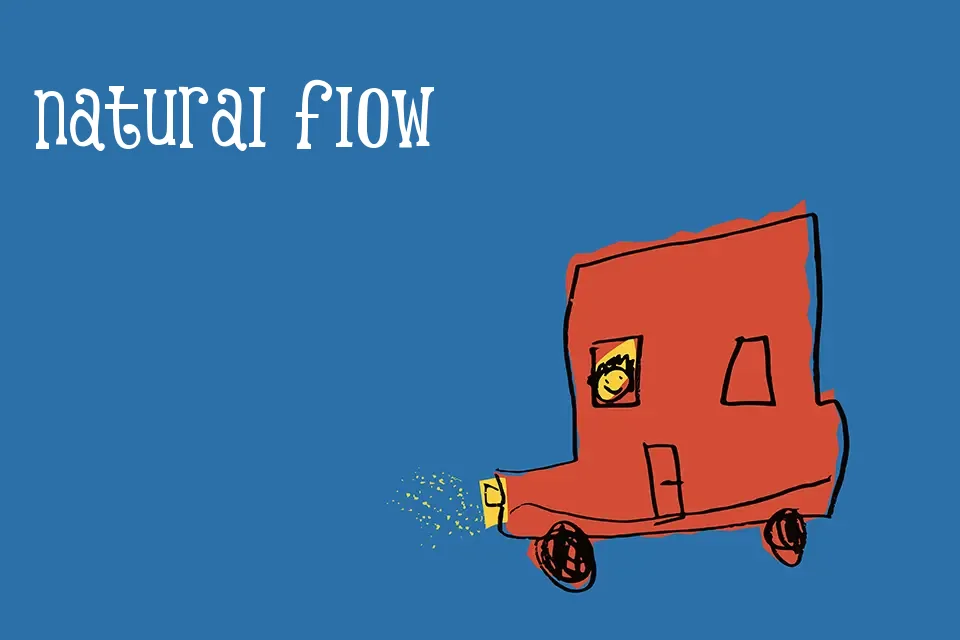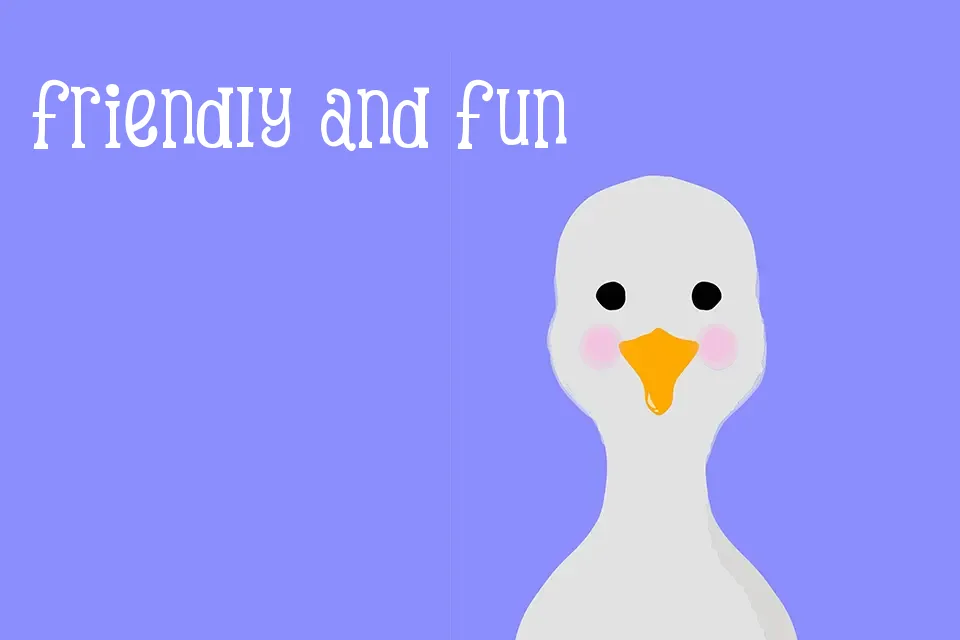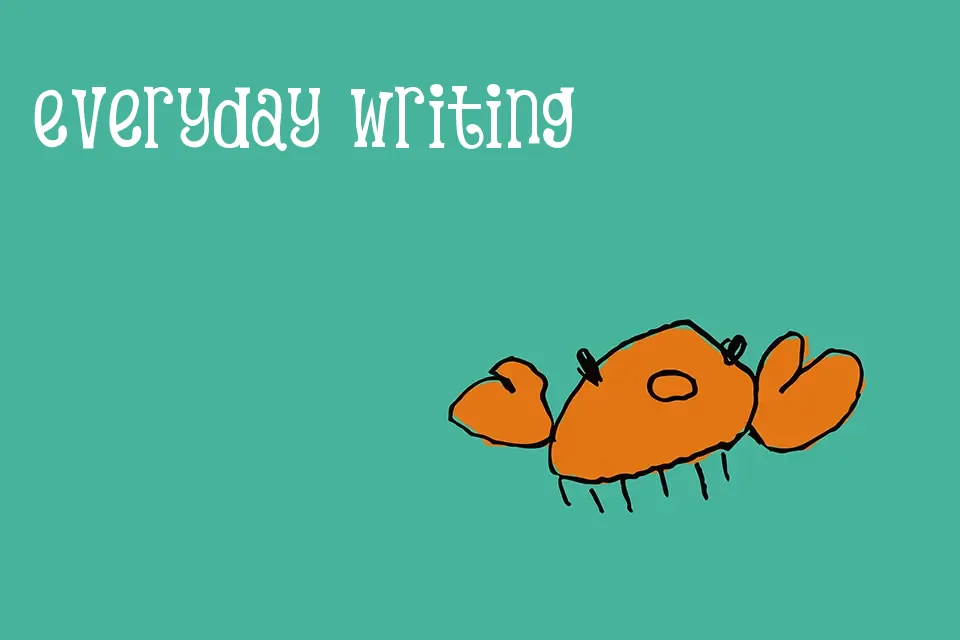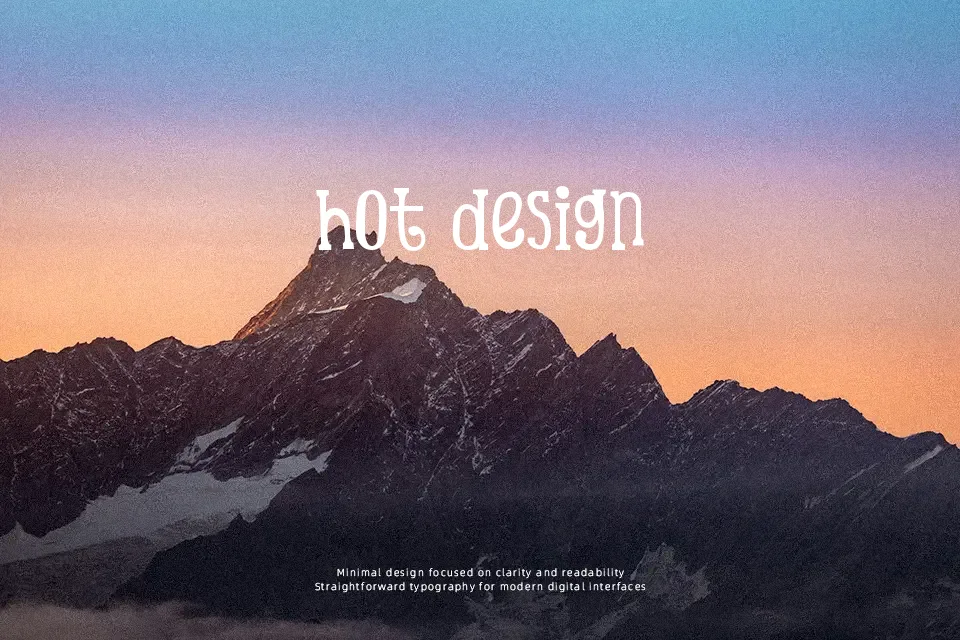
SC Tina’s Baby Shower Font
SC Tina’s Baby Shower Font presents an illustrative, hand-crafted design characterized by irregular stroke weights and spontaneous decorative flourishes. The letterforms display relaxed, loose spacing that supports comfortable legibility when arranged in short headline phrases and festive announcements. Uneven baselines and casual proportions give the typeface an energetic, handmade presence across party stationery, nursery decor, and seasonal promotional banners. However, the prominent decorative details become less effective at smaller sizes, where narrow counters can cluster together. Dense paragraphs reduce continuous reading comfort, making the font best suited for prominent display lines rather than body copy.
Best For: baby shower invitations, children’s party banners, nursery wall art, thematic greeting cards
Not Ideal For: long paragraph text, corporate reports, legal documents, small interface labels
Perfect for headline, invitation, and kids, with a artistic and decorative style.